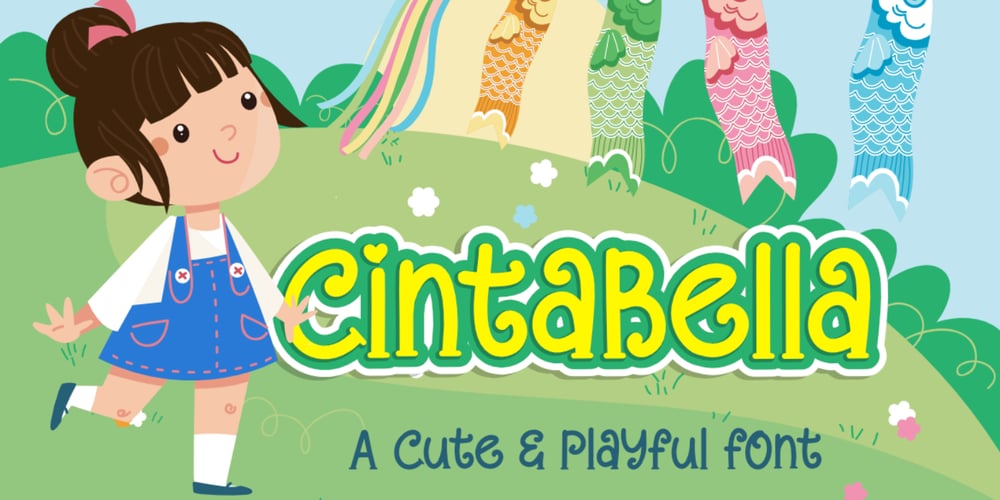
Cintabella Font Family was designed by Bayu Aji Fais Mursid and published by Bayuktx. Cintabella contains 1 styles and family package options. Hello,Thank you for visiting my products, we will give you the best choice.Cintabella a Cute & Playful Font, This font is made with a high premium quality level which you can use as flyers, quotes, posters, banners, packaging, merchandise, logotypes and much more.FEATURES :* Uppercase* Lowercase* Number* Punctuation* Multilingual* PUA Encode* OpentypeFILES INCLUDED :* Cintabella. 1Thank you